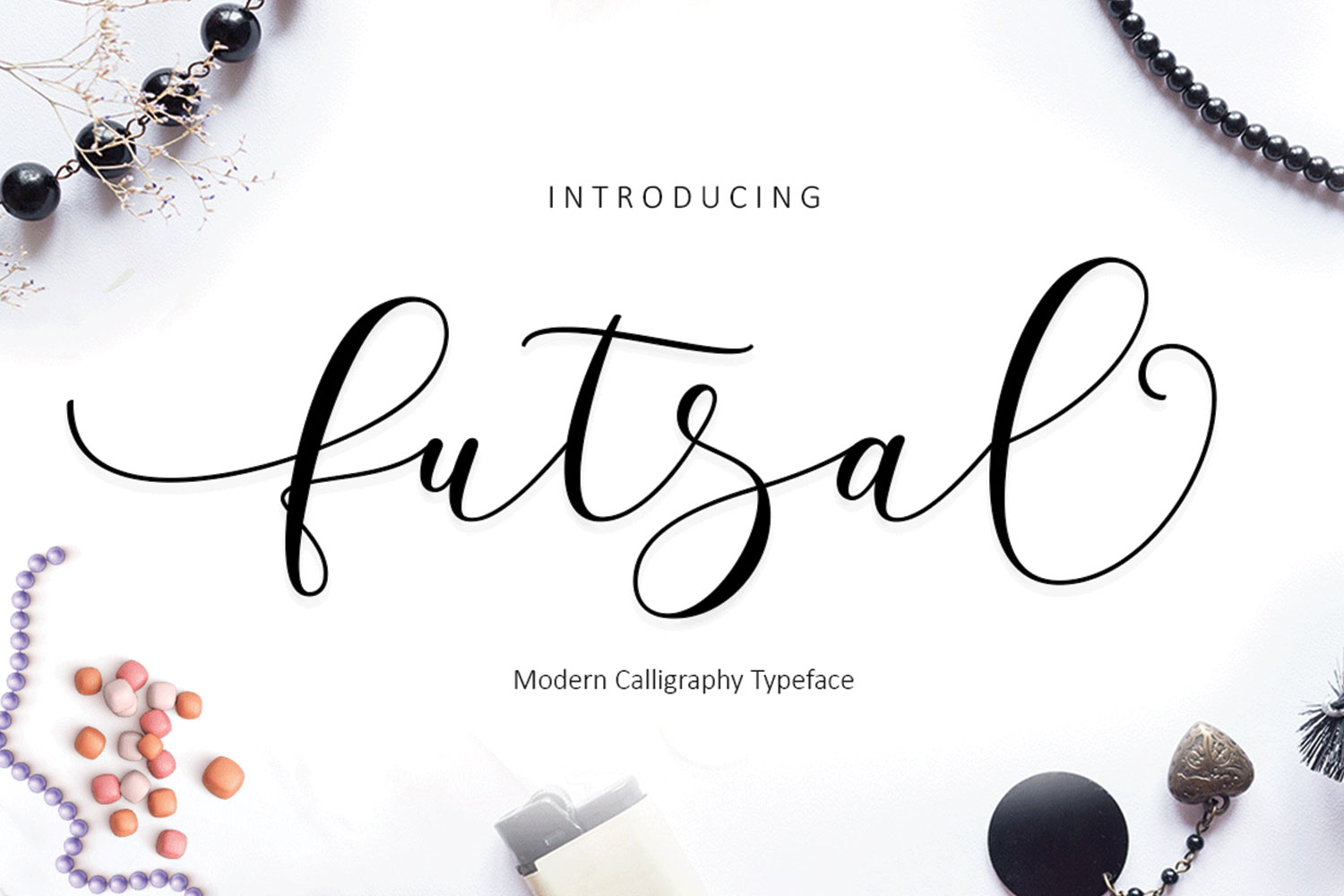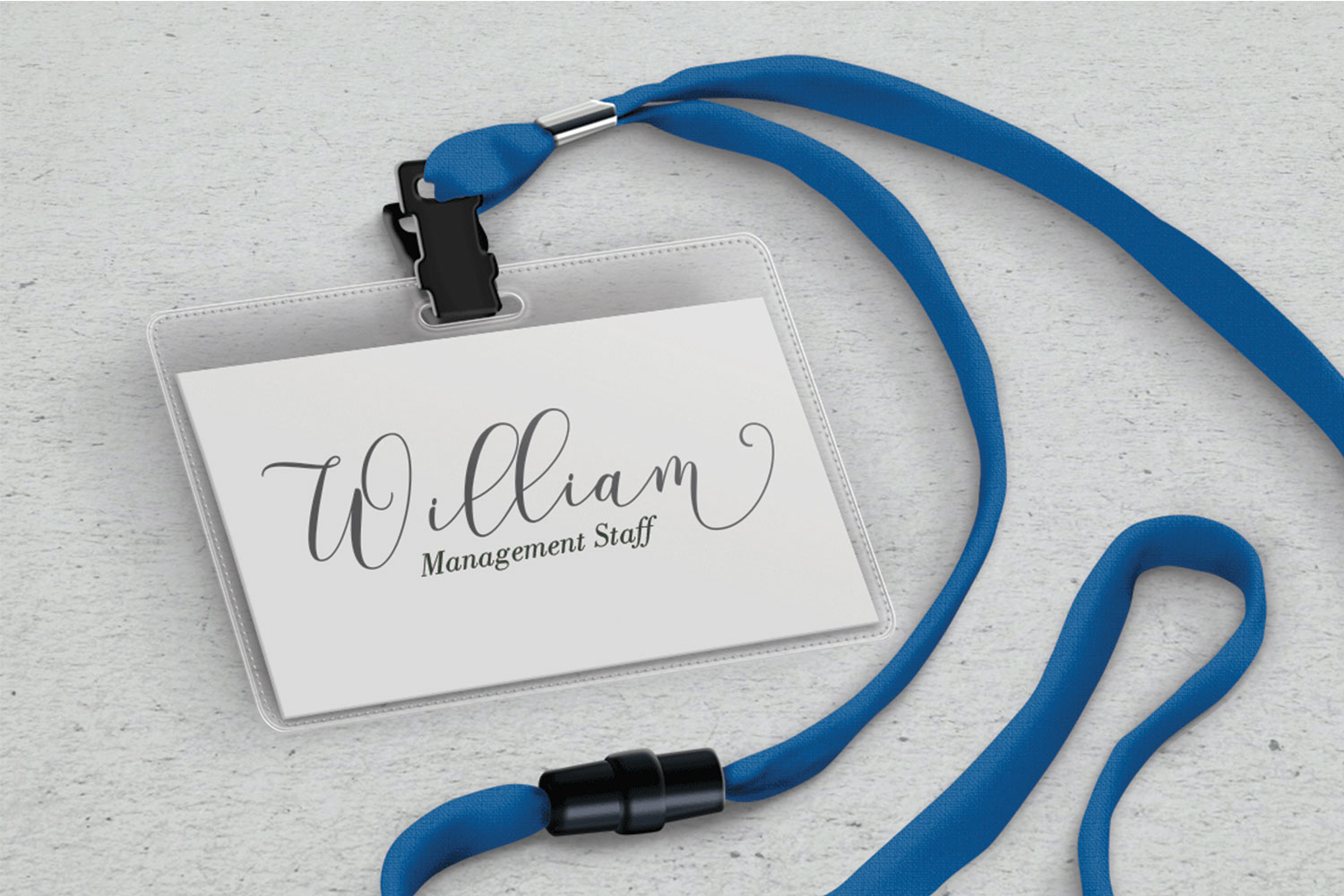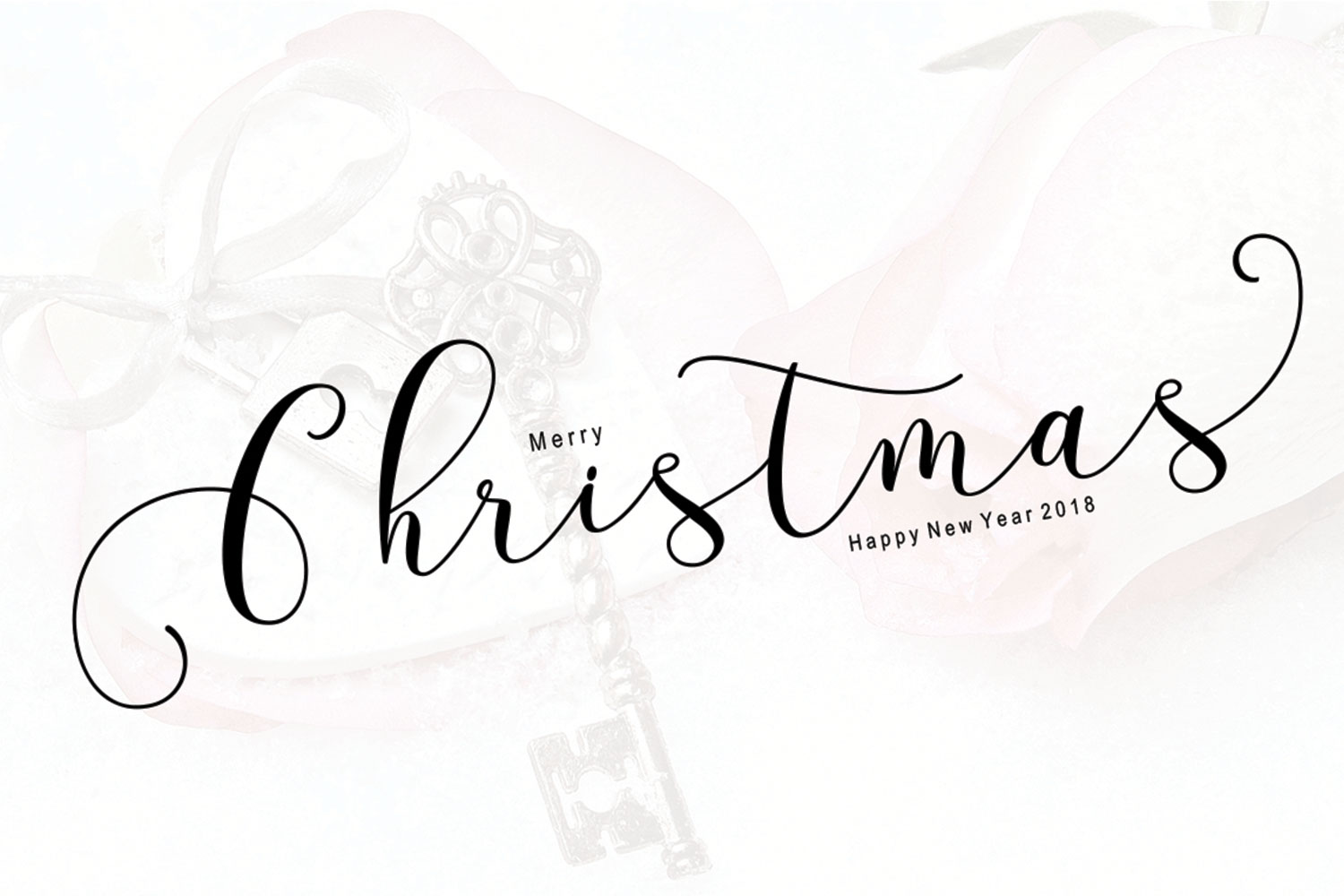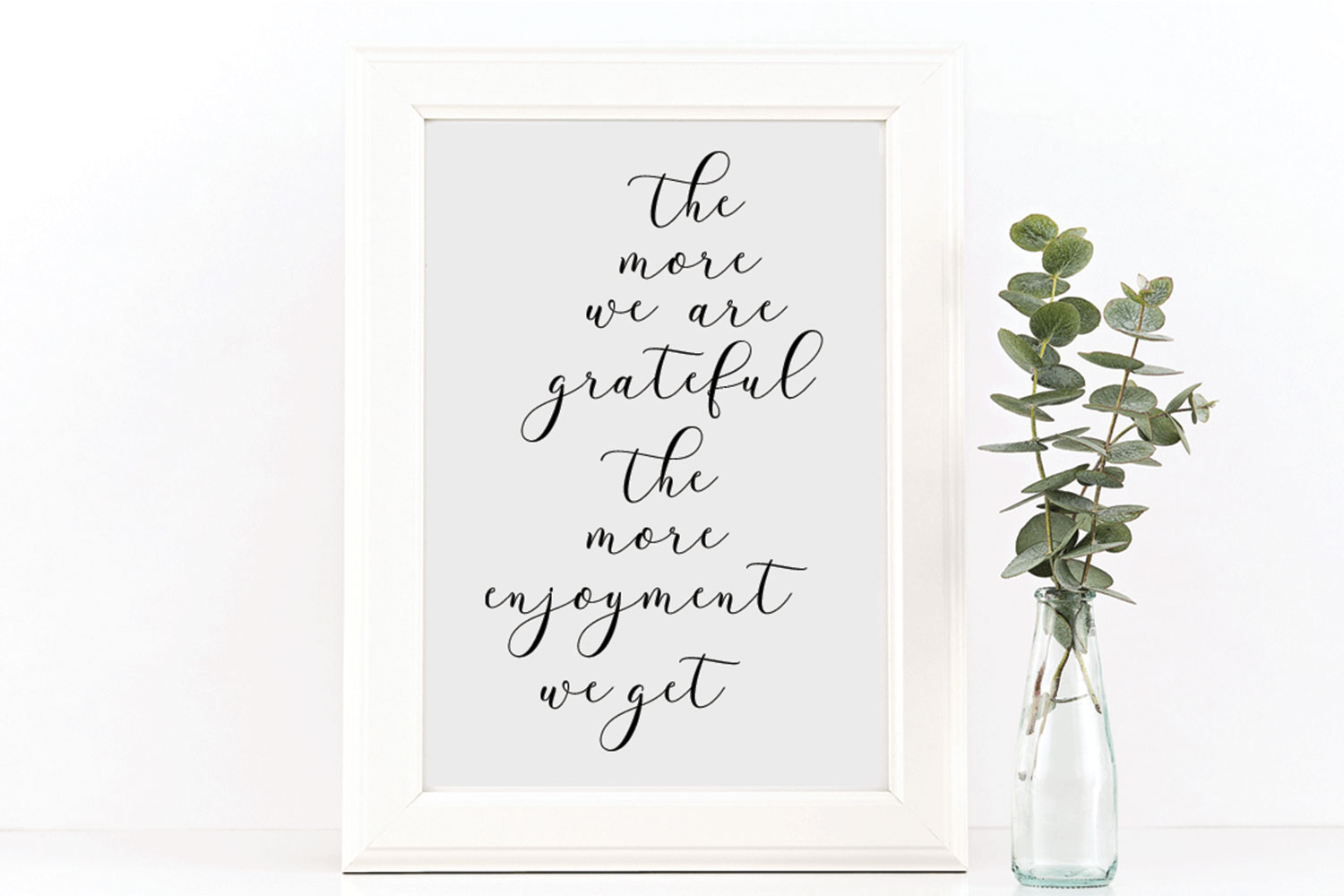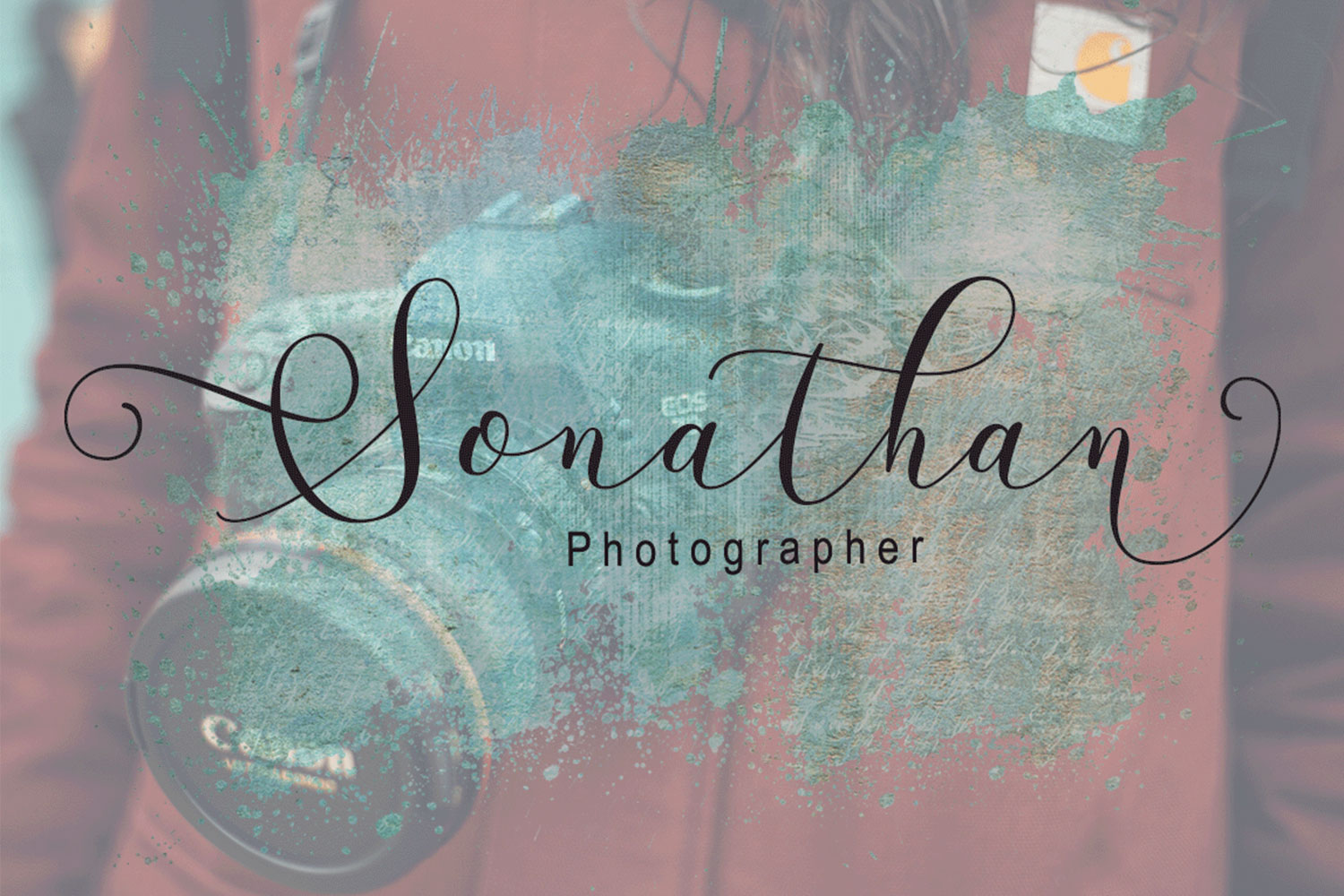
Futsal Script Font
About Futsal Script Font
Futsal Script is a unique and stunning font script that combines both classic and modern letter structure. Every letter has been neatly crafted so that your text looks beautiful and clean; with a modern script style, this font will suit many different projects.